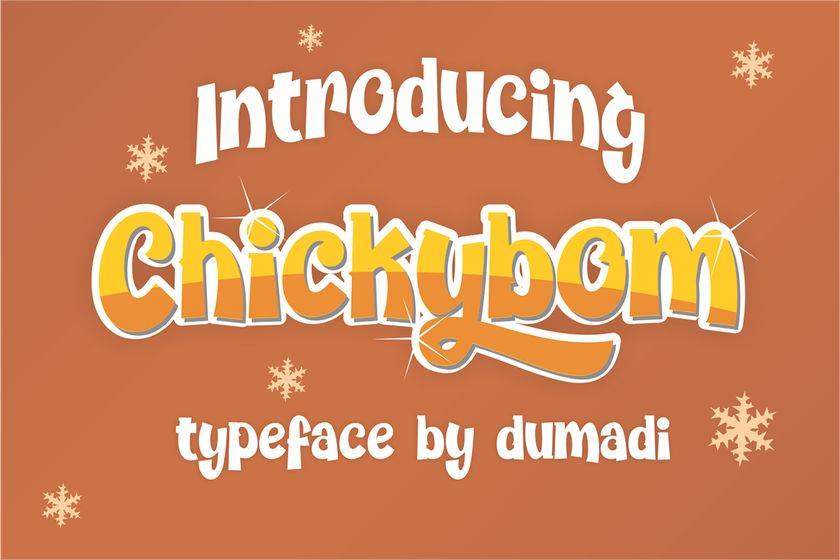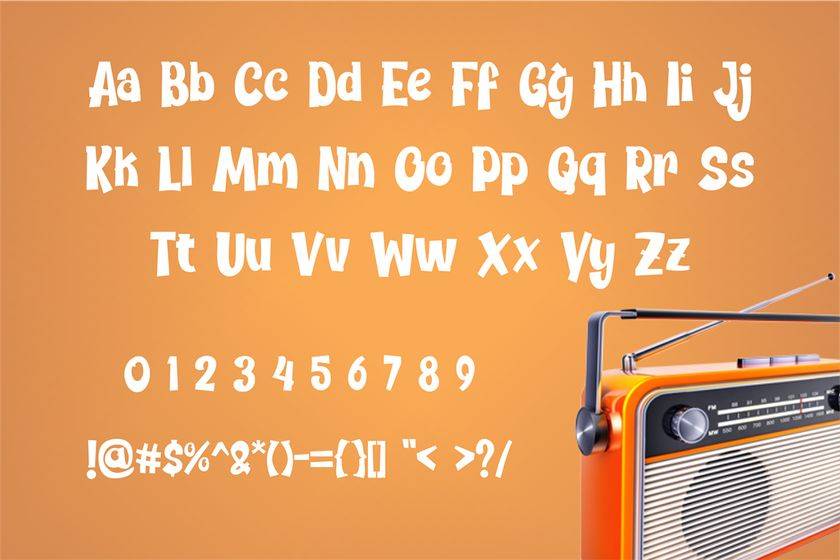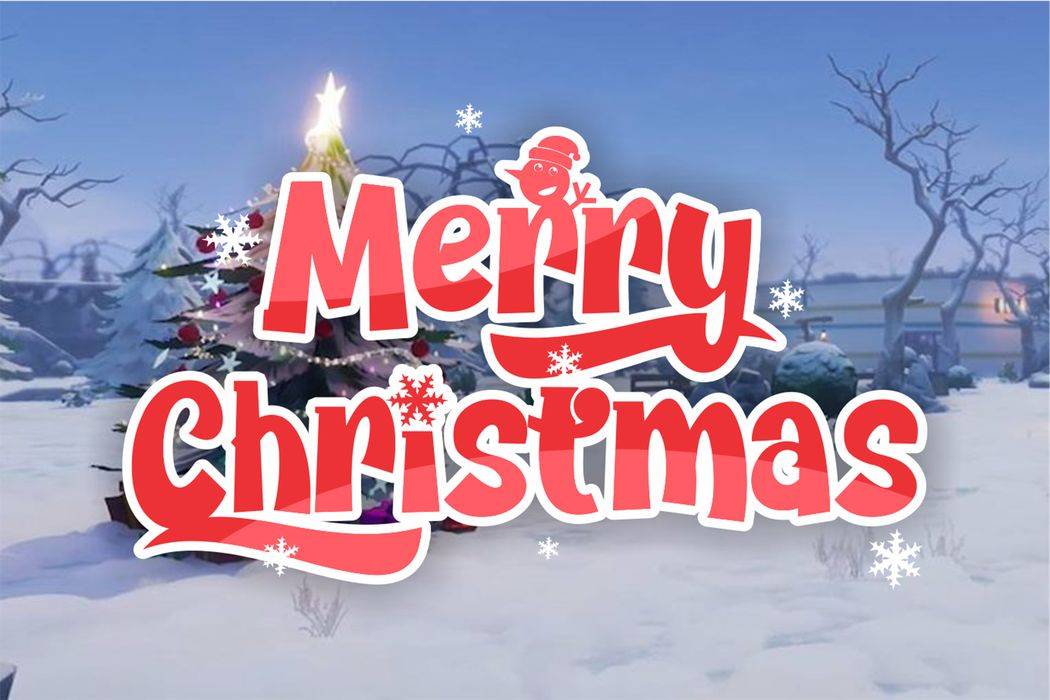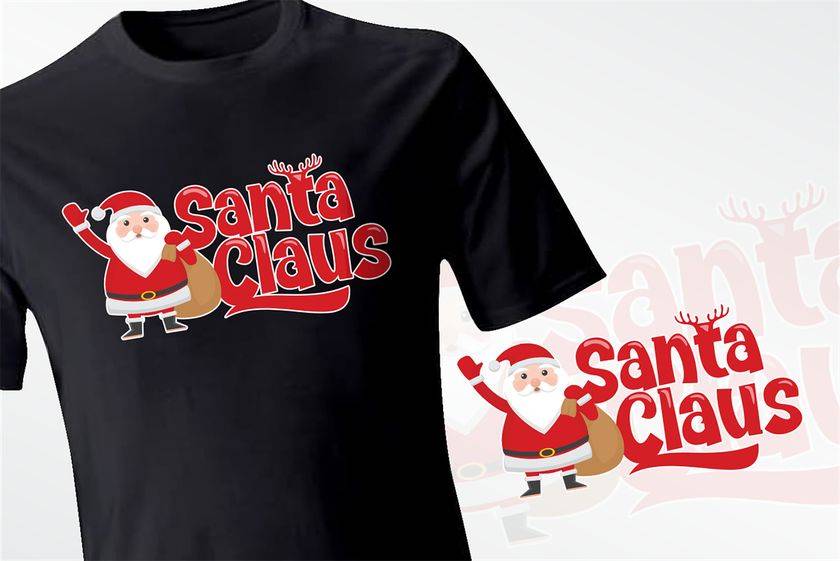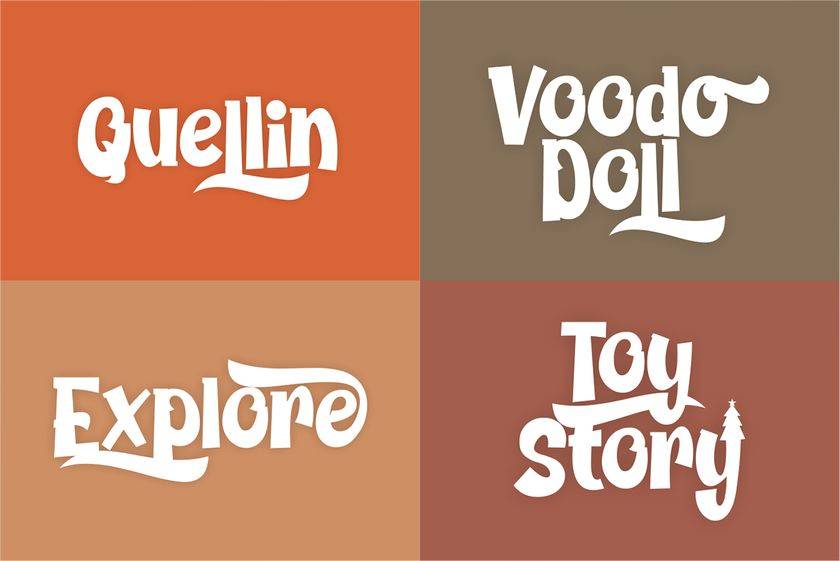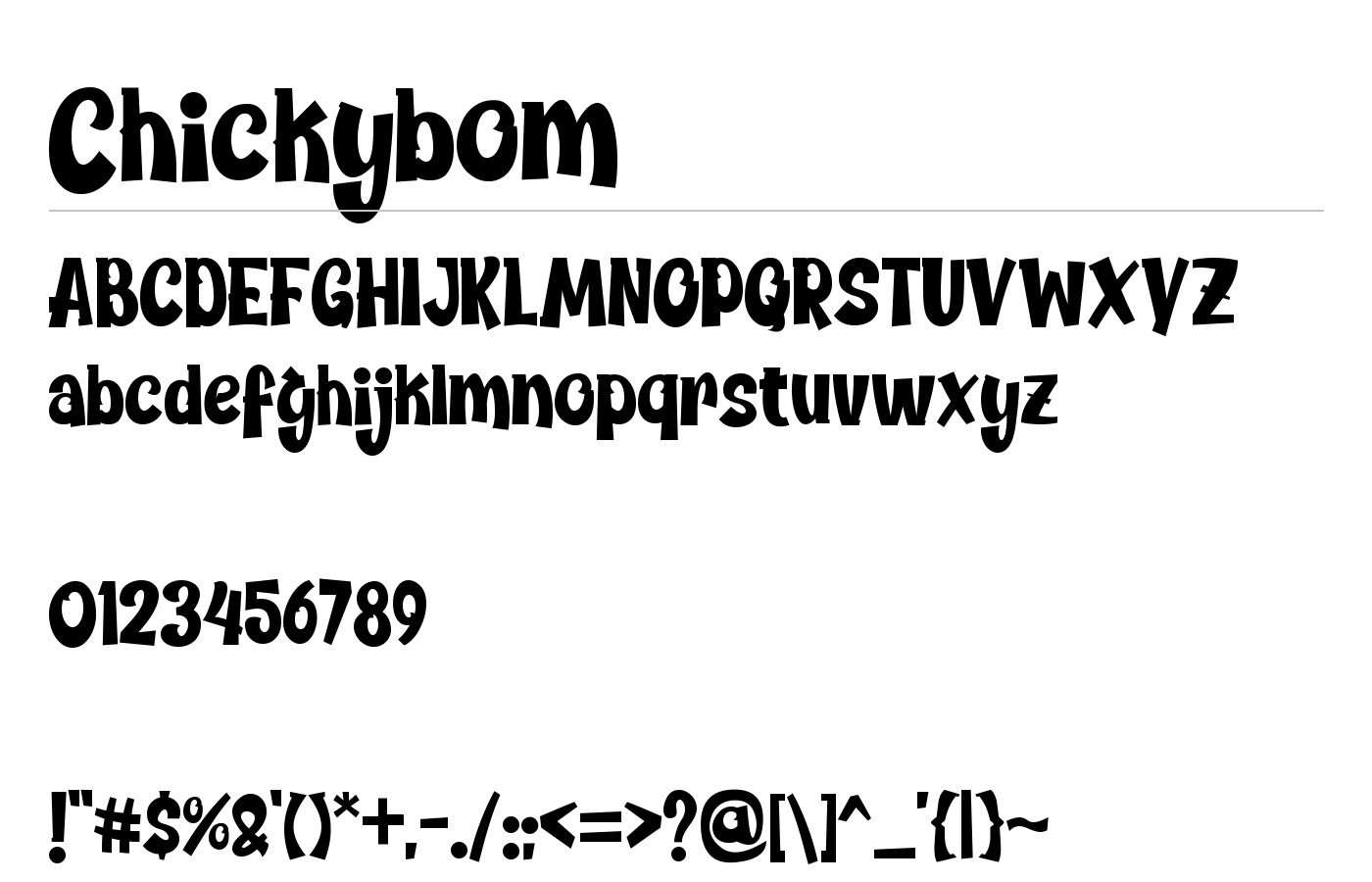
Chickybom is a bold, playful sans serif font with a quirky, hand-drawn feel. Its slightly irregular letterforms and varied stroke widths give it a fun, casual personality, making it perfect for creative projects, children’s materials, or any design that wants to convey energy and friendliness. This font works well in headlines, logos, and packaging where a unique and approachable style is needed.
Chickybom Font
About Chickybom Font
| Font family | Chickybom Font |
| Designer | toni dzulham |